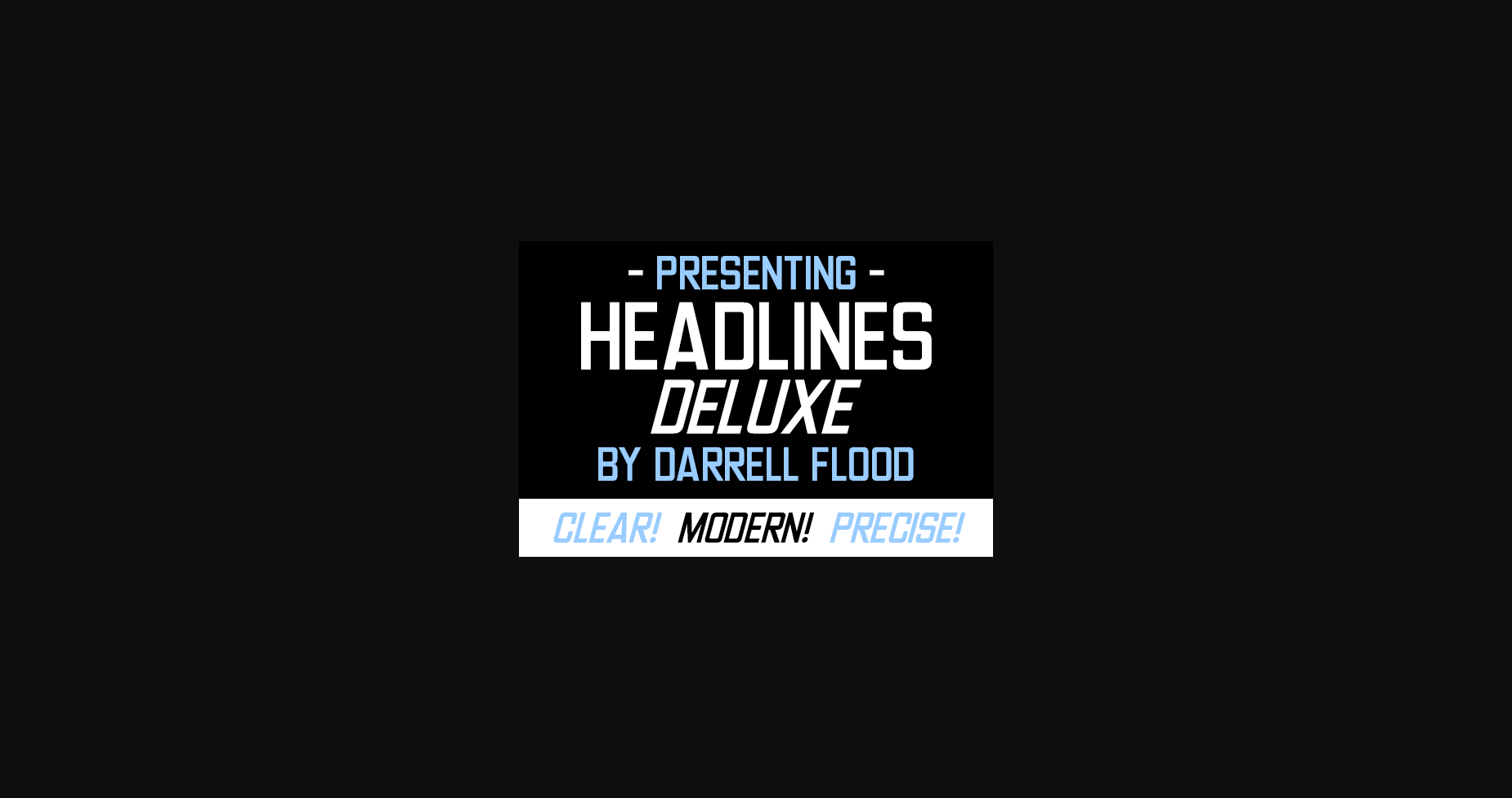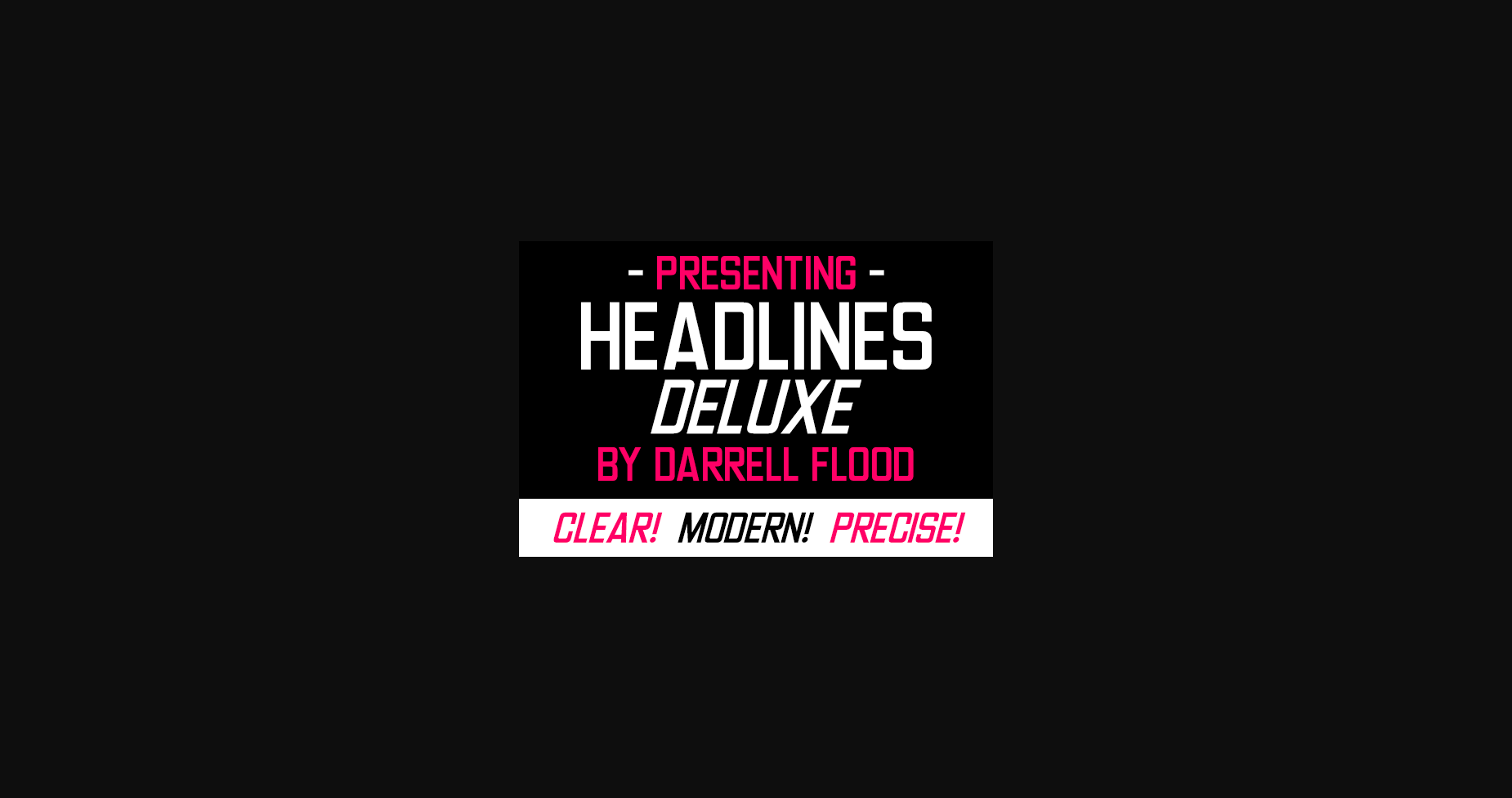
Headlines Deluxe Font
About Headlines Deluxe Font
Headlines Deluxe is a bold and simple lettered sans serif font. It can easily be matched to an incredibly large set of projects, so add it to your creative ideas and notice how it makes them stand out!